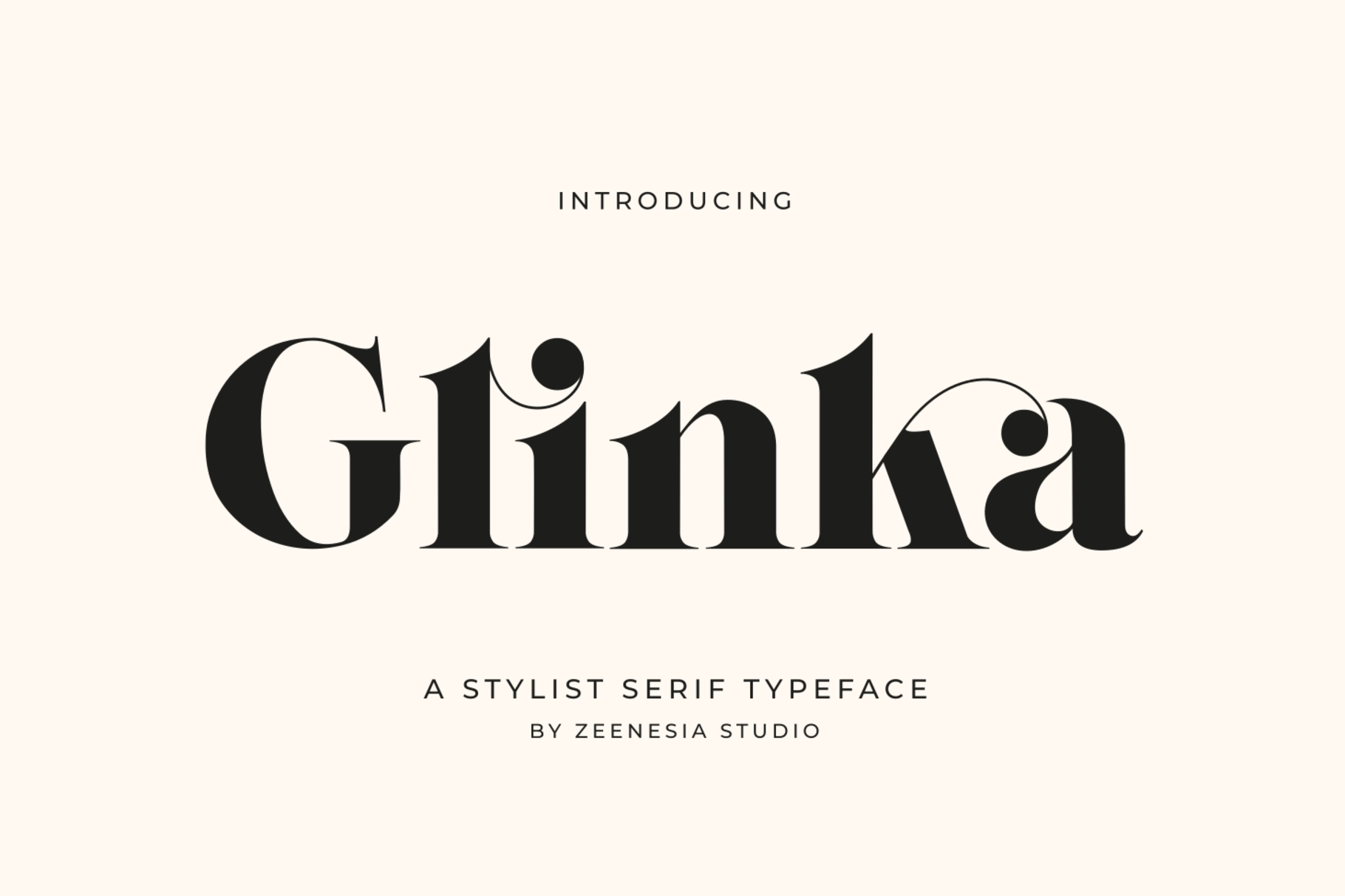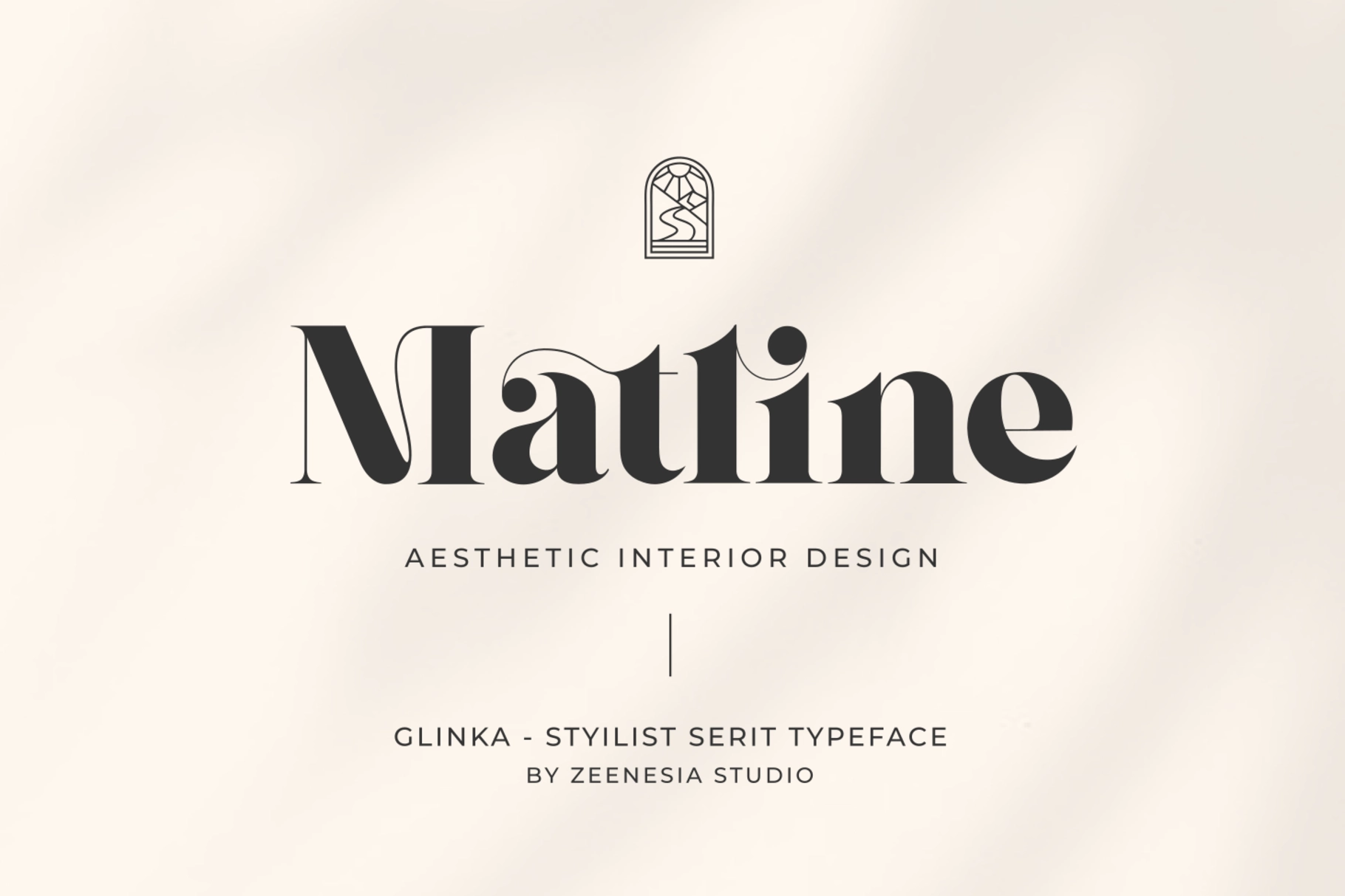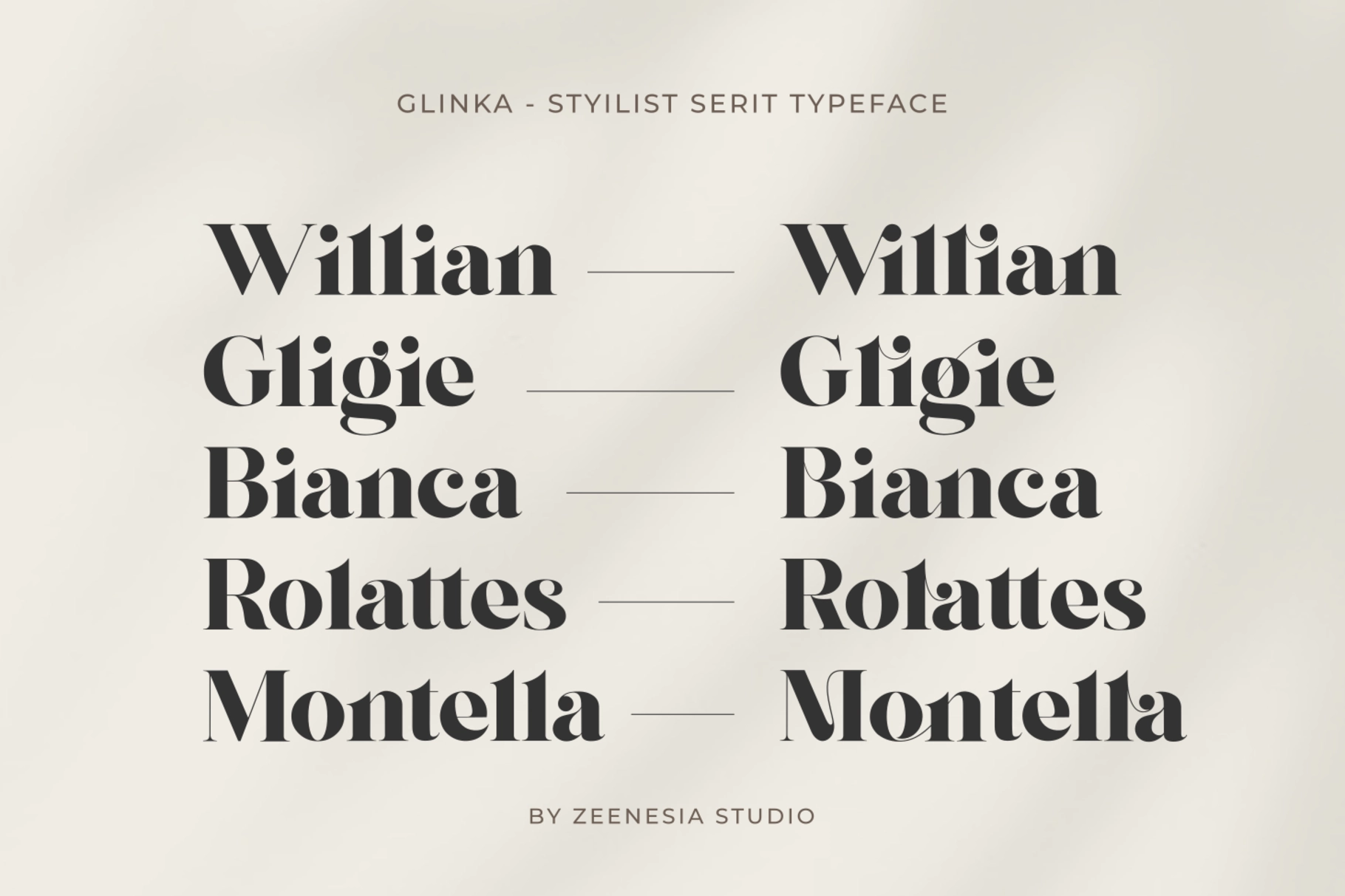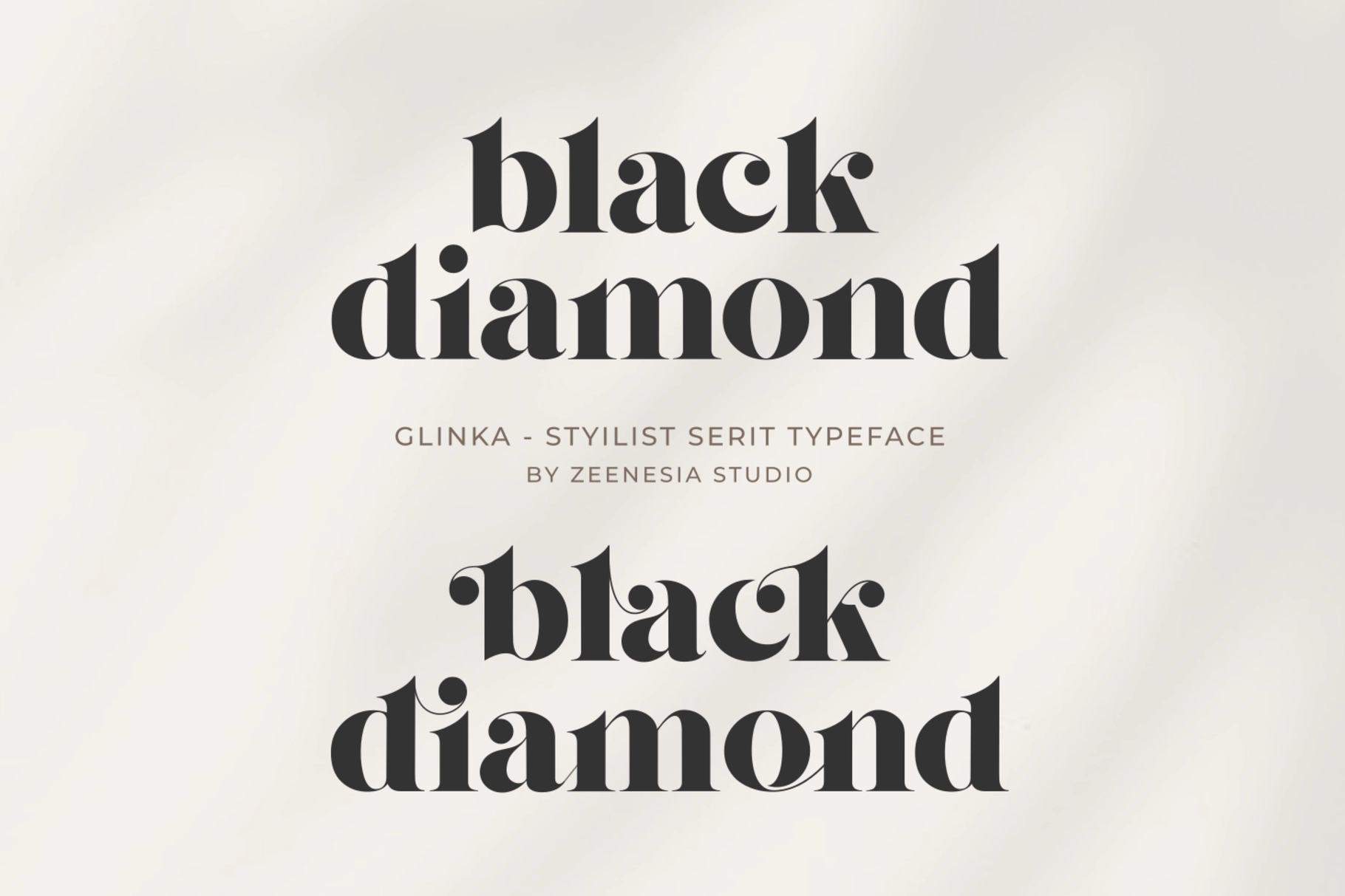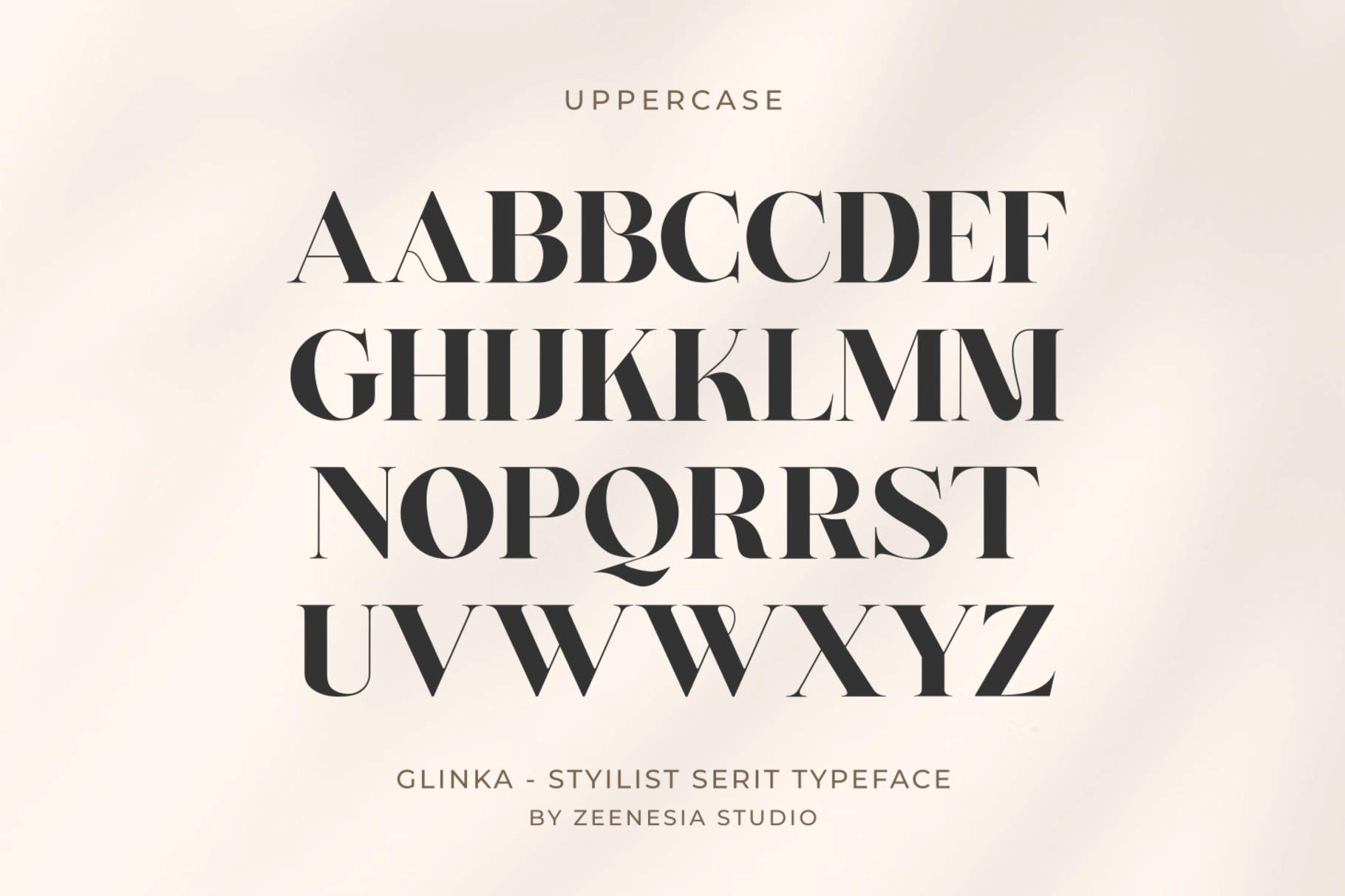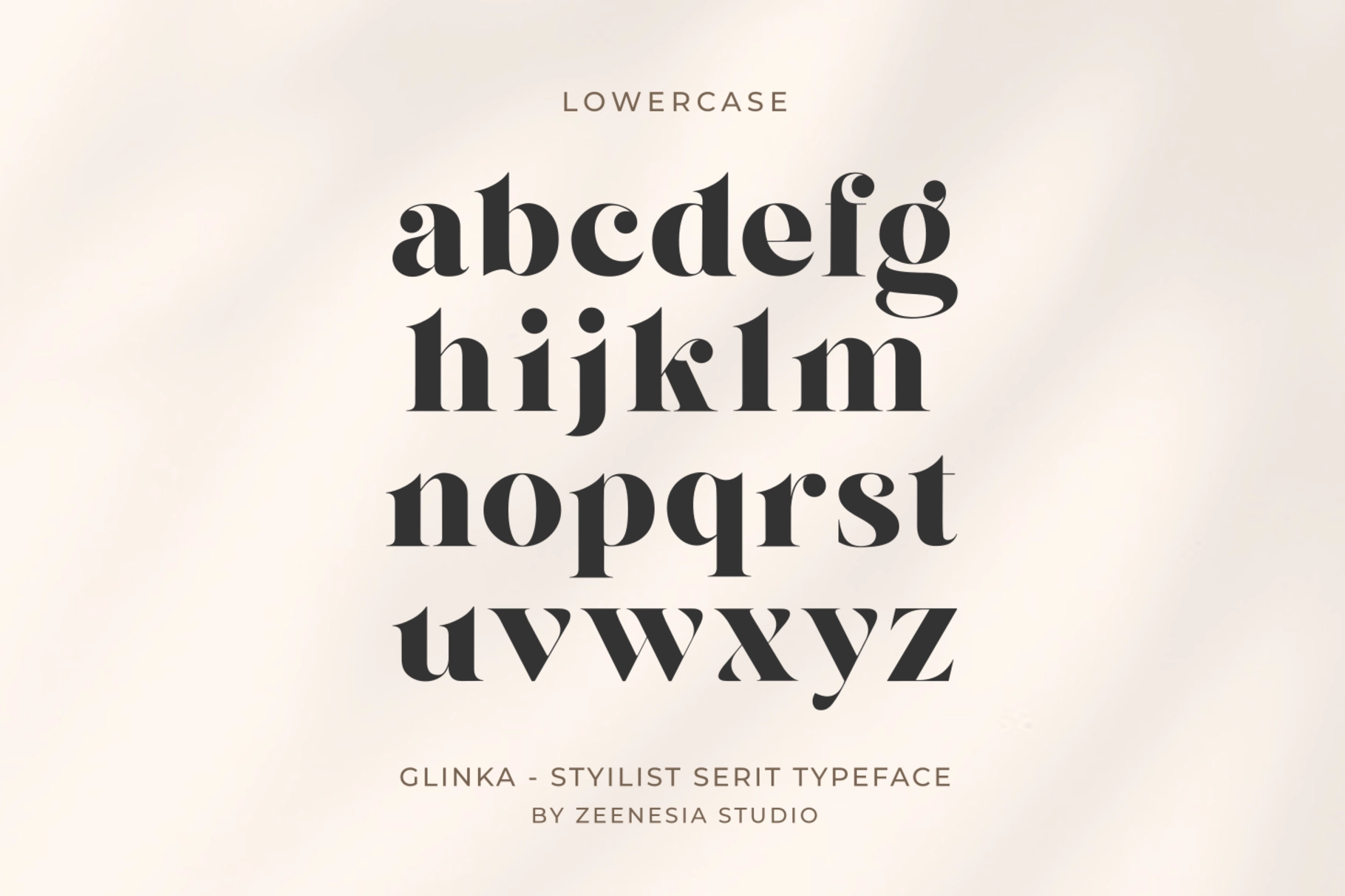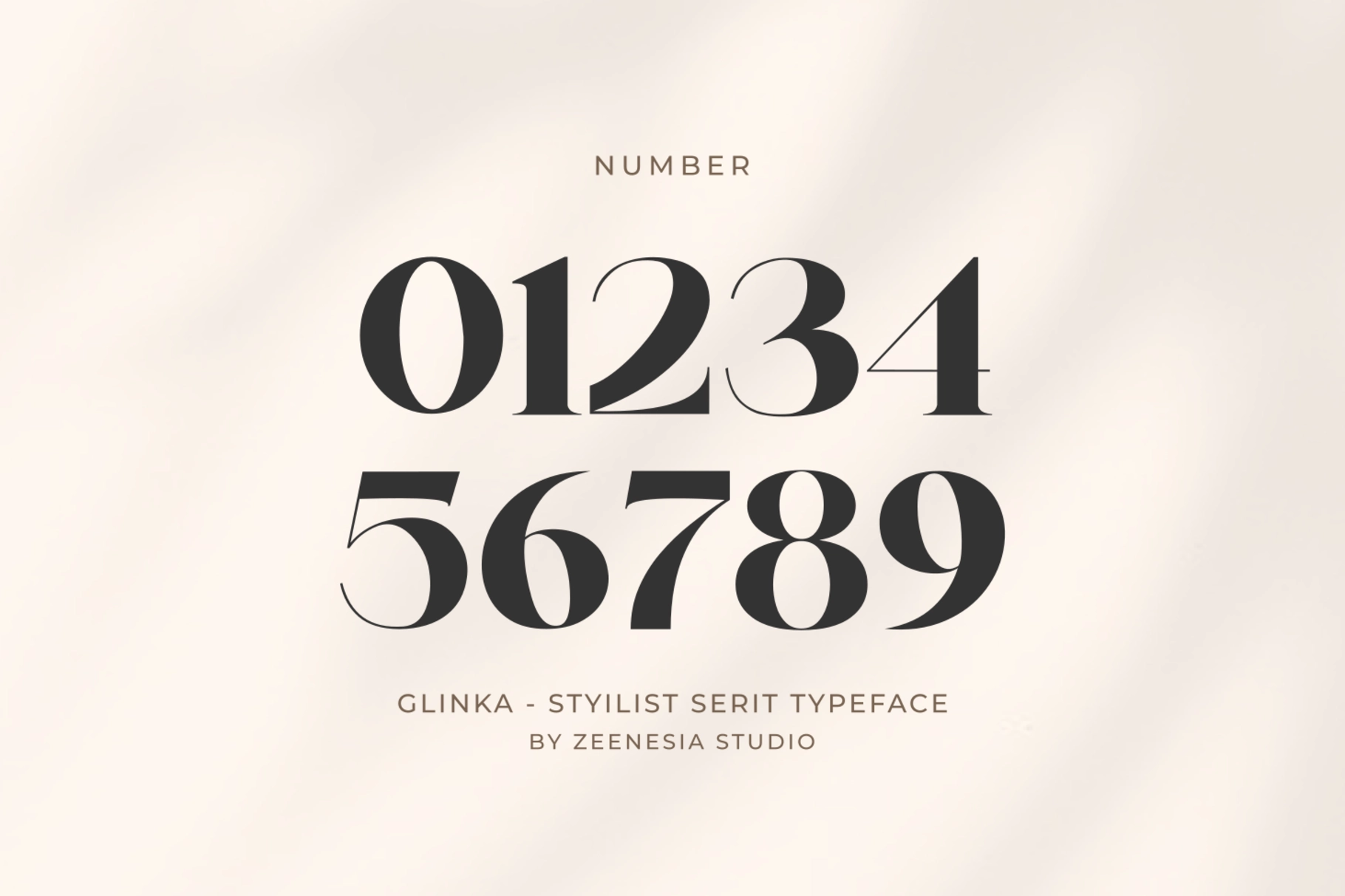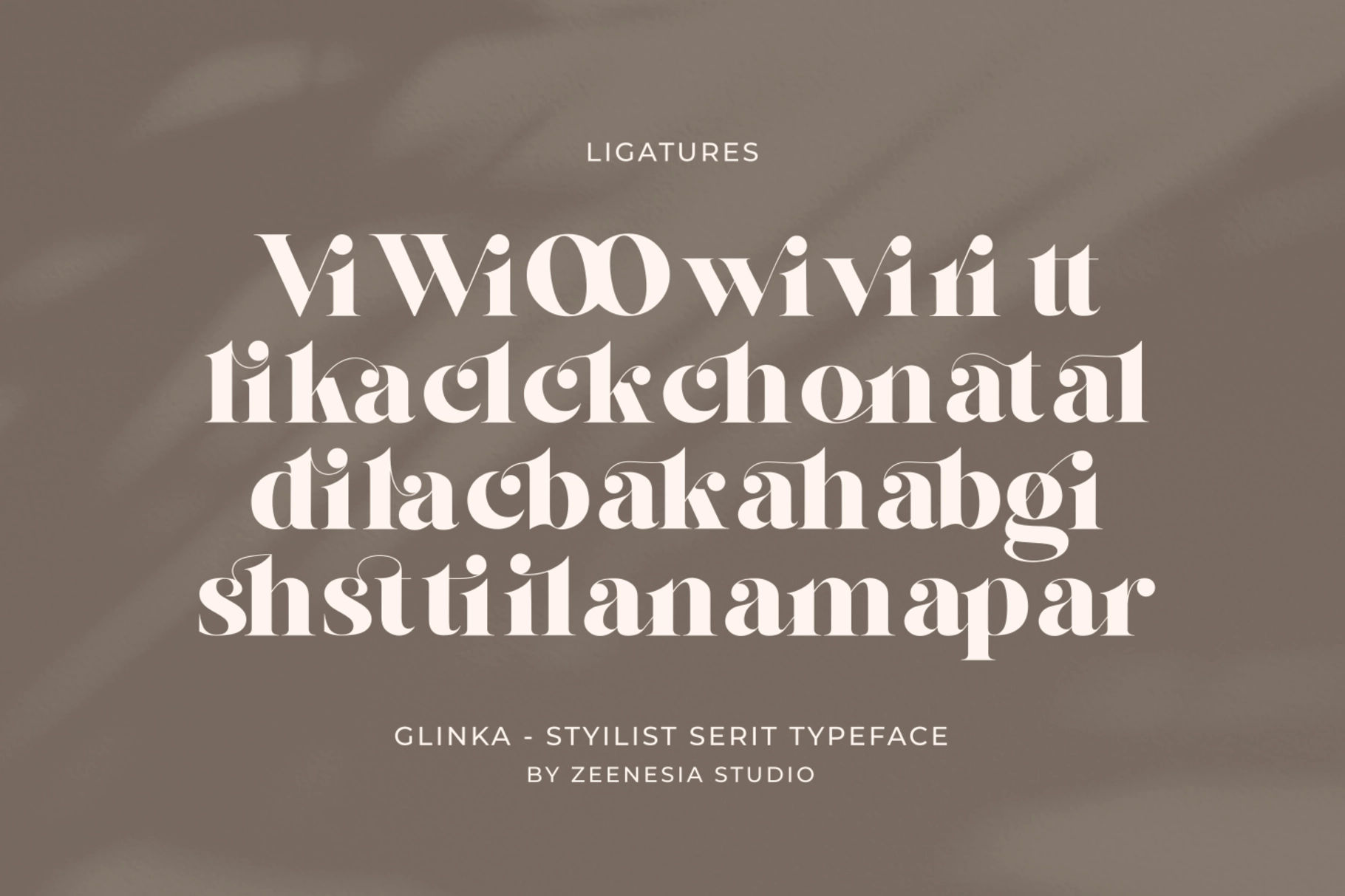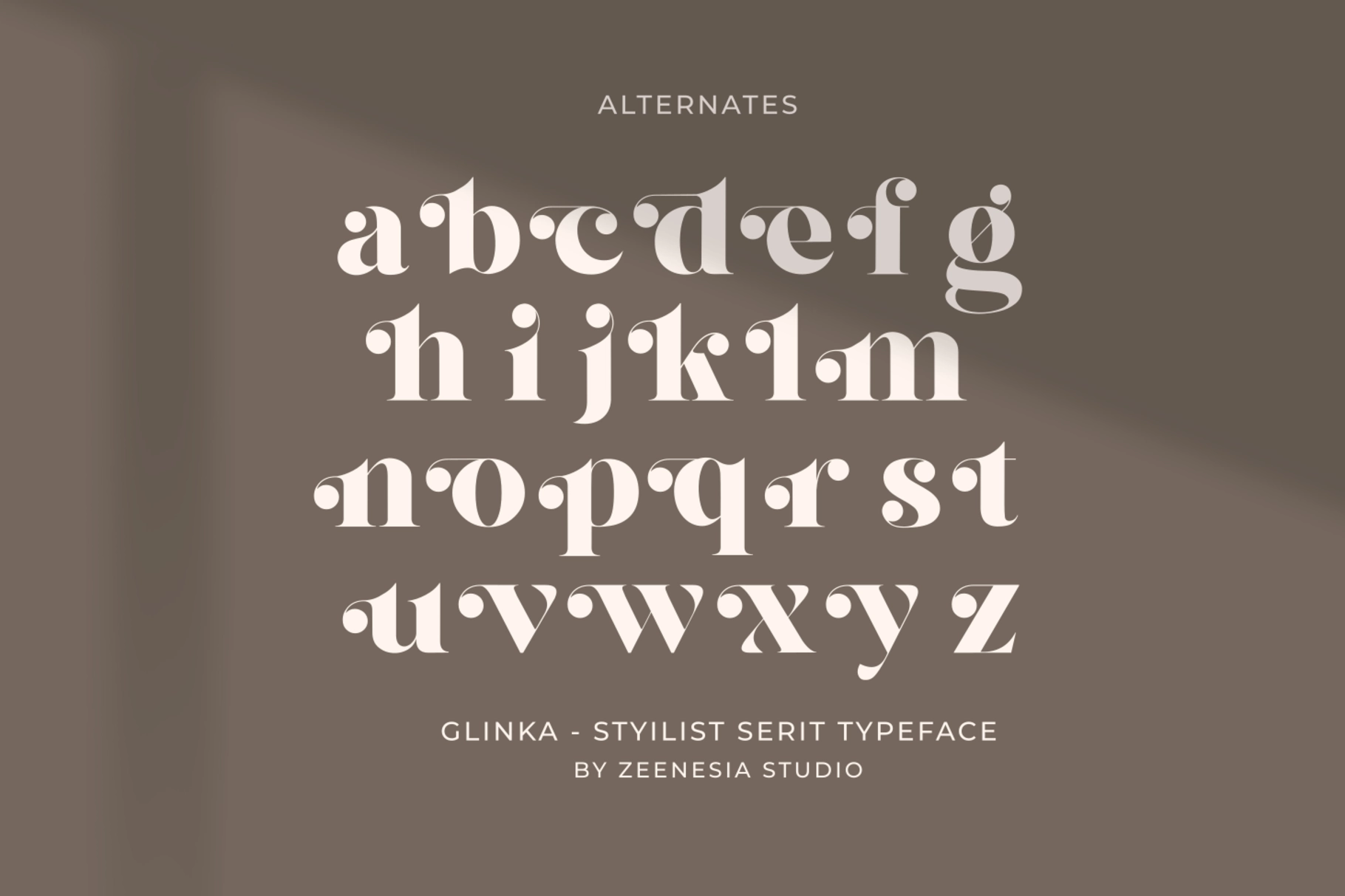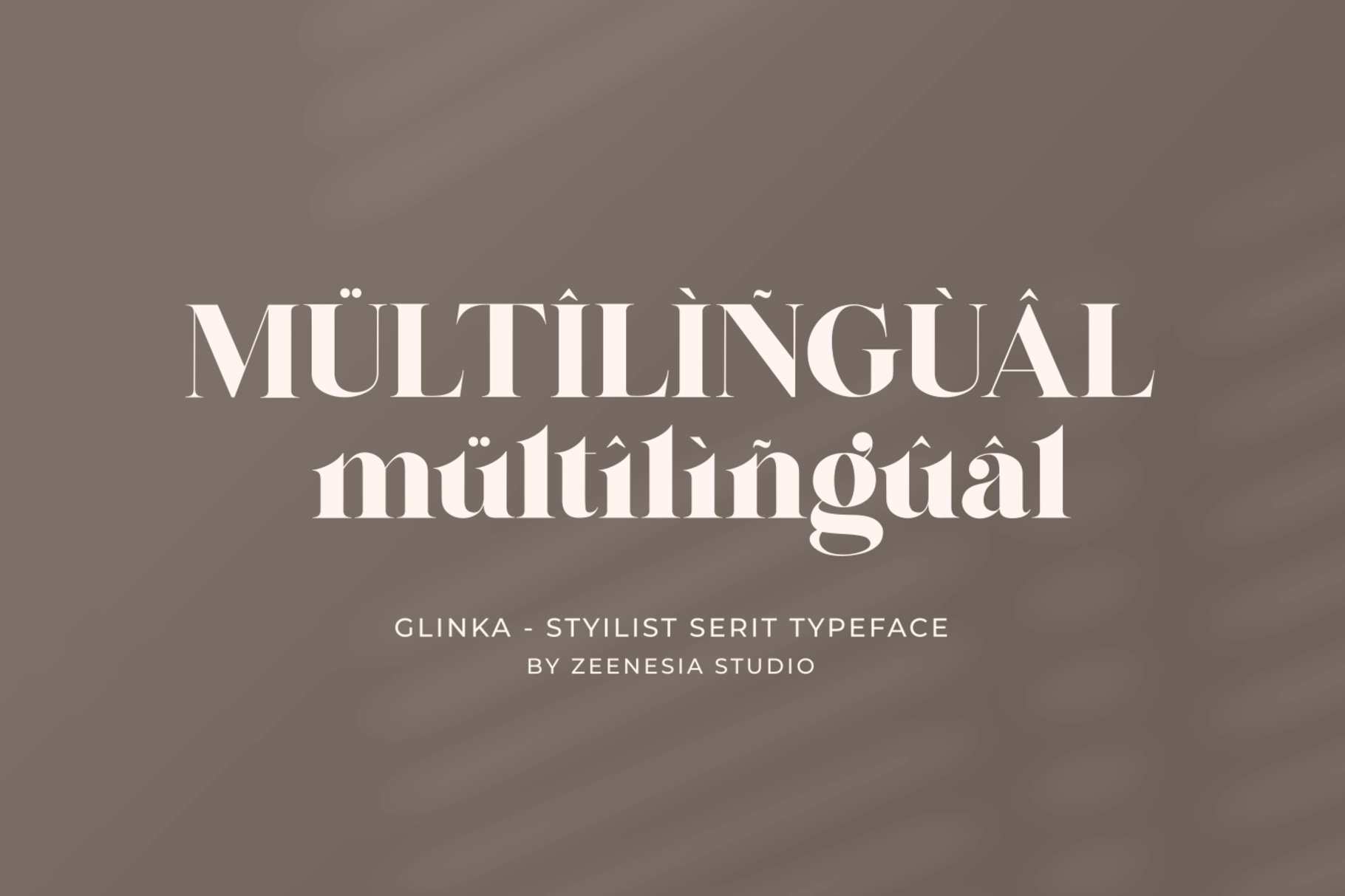
Glinka - Elegant Serif Font
Glinka
Glinka is an elegant serif font built on a high-contrast skeleton, with ball-terminal accents on alternate letters and a deep set of natural ligatures that fuse pairs like ti, ch, and st into single flowing shapes. Cap heights run tall and narrow — closer to a fashion-house lockup than a text face — and the contrast keeps headlines sharp even at large sizes.